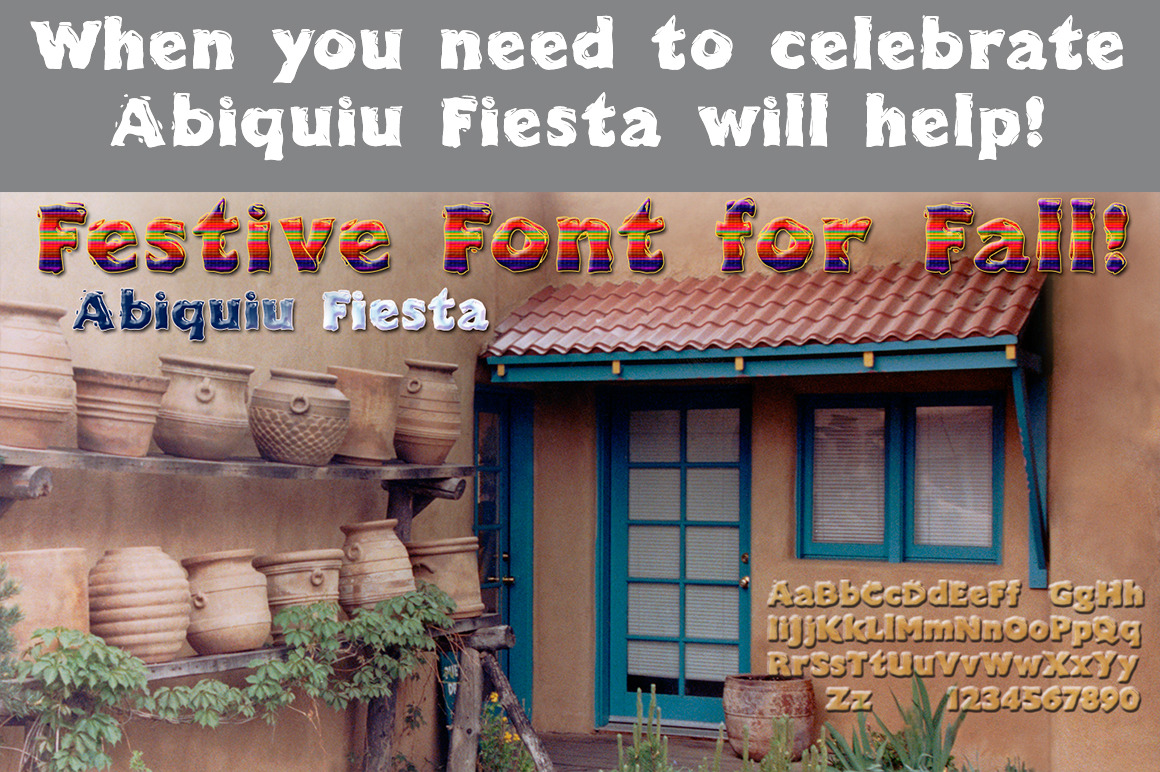
Abiquiu Fiesta: happy font!
Abiquiu Fiesta will help you celebrate. It's an OpenType Pro font with 574 glyphs with small caps, oldstyle figures, ligatures, swashes, and a lot more. The graphic is from the Flowers & Stars Collection. It's a 300 dpi PNG—almost 5"x5"